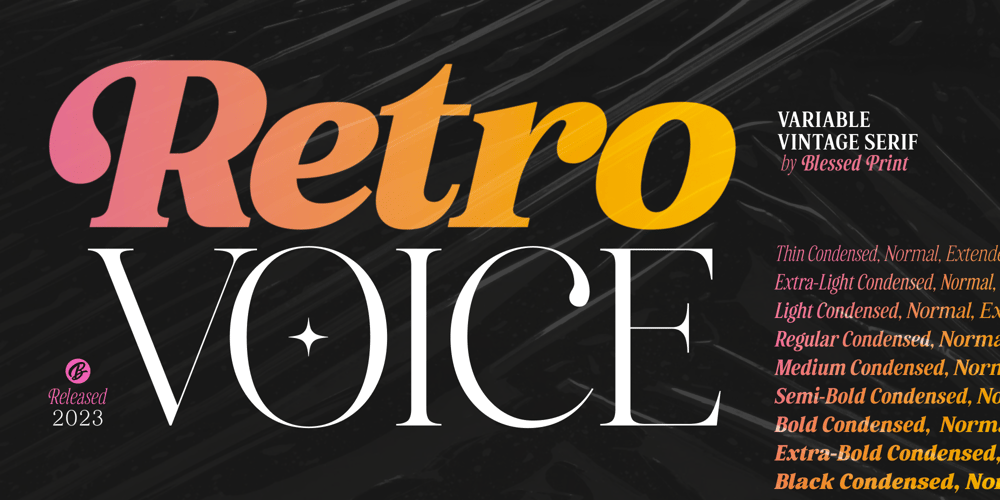
Retro Voice Font Family was designed by Dmitrii Mikitenko and published by BlessedPrint. Retro Voice contains 163 styles and family package options. Retro Voice is variable serif font meticulously crafted by BlessedPrint to evoke the nostalgic charm of the 80’s. Drawing inspiration from trendy vintage magazine headlines, this font family boasts regular and italic versions.Retro Voice’s variable font format provides you with boundless opportunities to fine-tune your typography. With the ability to adjust width, weight, and contrast, you can create a wide range of visual styles that cater to various design projects.No need to fumble with glyph panels; simply type a “+” after the letter to access alternate characters. This feature extends to all characters, thanks to our PUA encoding.Each character within Retro Voice has undergone a meticulous design process. Every curve, line, and thickness was refined to perfection through a precise and rigorous mathematical verification, resulting in a font that radiates luxury and elegance.